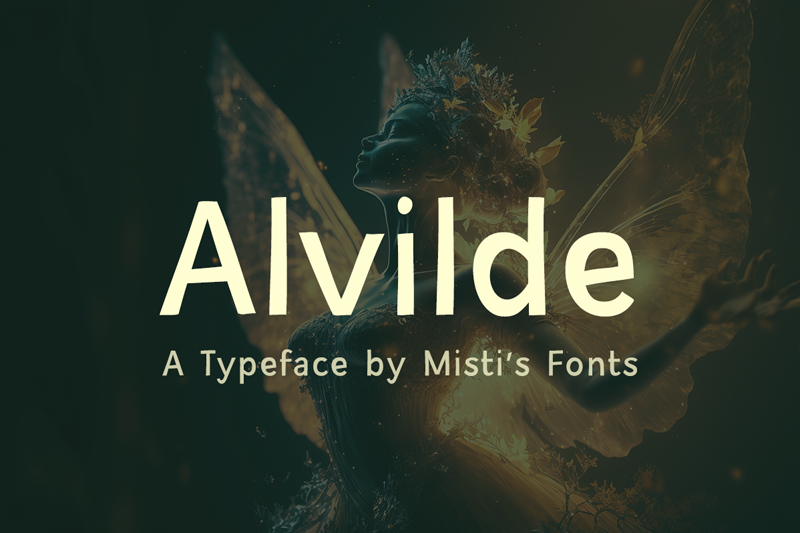
Font name: | Alvilde |
Alvilde is a unique sans serif font that is perfect for those looking to add a touch of whimsy to their design projects. This font is perfect for creatives who want to add a playful and imaginative touch to their work. Terms Of Use and Commercial Licensing: https://mistifonts.com/alvilde/ |